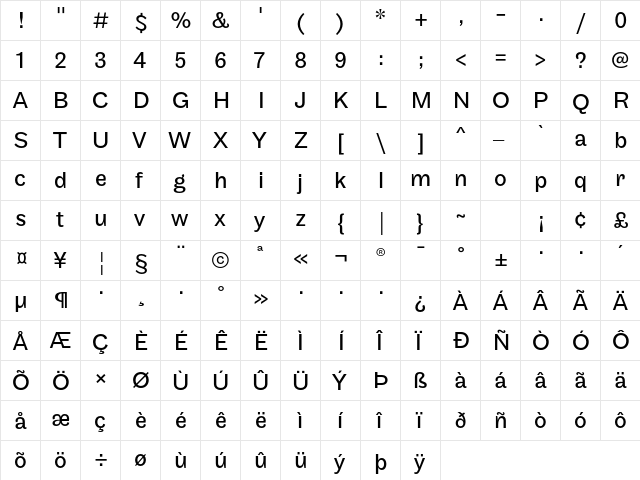
Maple Regular
| Foundry | Eric Olson |
| Designer | Eric Olson |
Design Context for Maple Typeface
Maple is a composed and adaptable typeface that performs quietly and consistently across a wide range of design contexts.